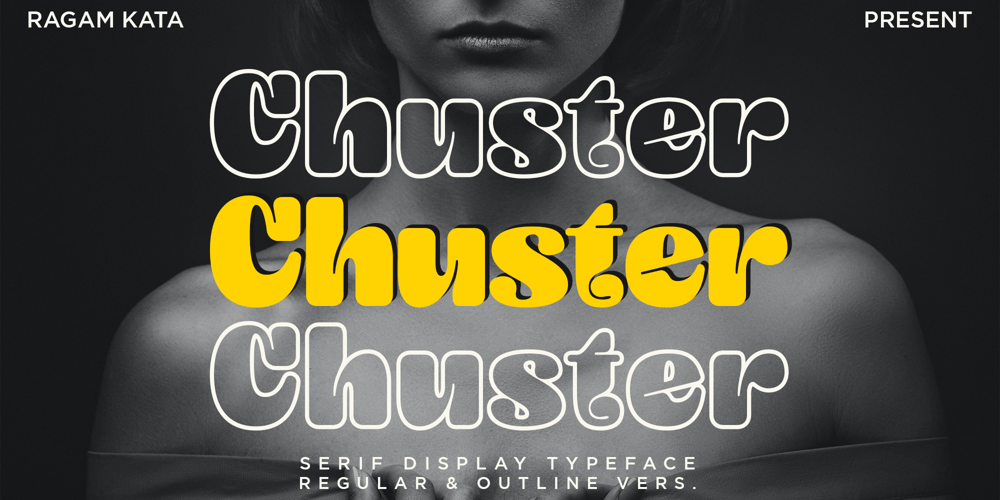
Chuster
Chuster font
Chuster Font Family was designed by Yogiswhara Dio Prakoso Riadi and published by RagamKata. Chuster contains 2 styles and family package options. Chuster – Retro serifChuster is a serif font that carries a retro theme, presenting a bold and attractive font appearance. With a design inspired by a retro aesthetic, Chuster exudes a strong and bold impression, perfect for design projects that want to convey a vintage or classic feel.Features :- Regular, Outline- Ligatures & Alternates- Letters, numbers, symbols, and punctuation- No special software is required to use this typeface even work in Canva- Multilingual Support